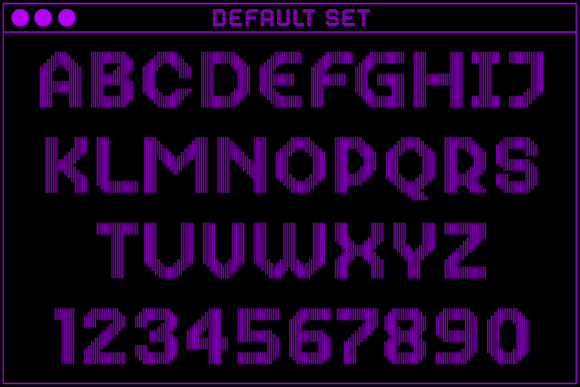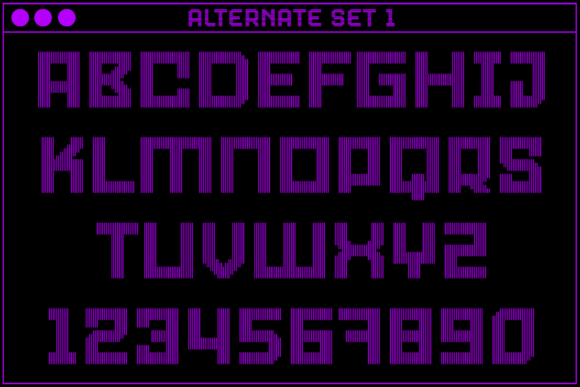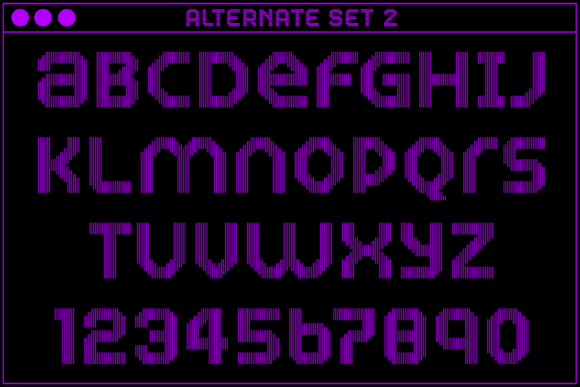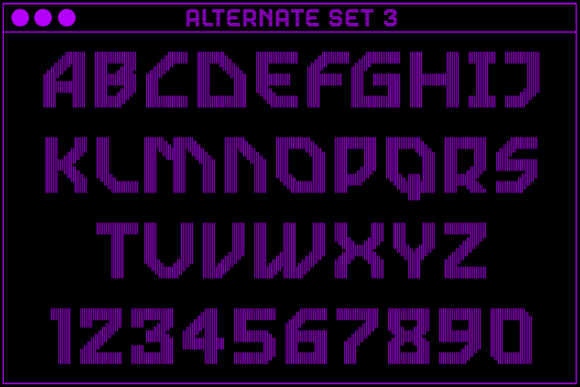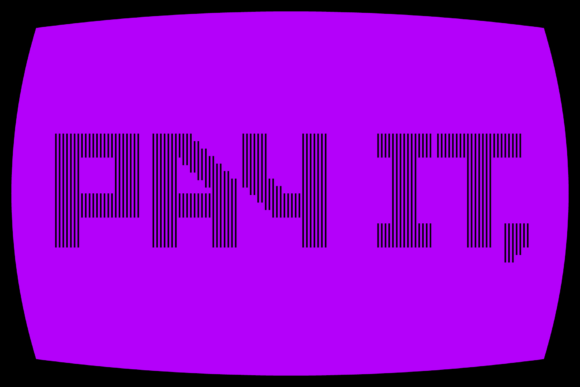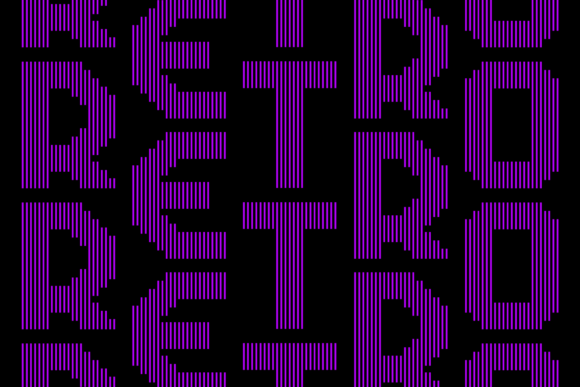
Introduction to MultiType Lines Regular 2 Font
Have you ever been working on a creative project and suddenly, the perfect font strikes your eye? It’s like a lightbulb moment that sets your design off in a whole new direction. For many designers, this feeling is a familiar one, and the right font can make all the difference between a good design and a great one. That’s where MultiType Lines Regular 2 Font comes in – a cool, uniquely shaped, pixelated decorative font that adds a distorted and trendy touch to your designs.
With its PUA encoded features, you can easily access all glyphs and swashes, giving you endless possibilities for your next design project. Whether you’re working on a free download or a high-quality design resource, MultiType Lines Regular 2 Font is sure to bring a touch of creativity and originality to your work. Its versatility and high-quality design make it a valuable addition to any designer’s toolkit.
Key Features of MultiType Lines Regular 2 Font
- High-quality font designed for creative projects, offering a unique and versatile aesthetic.
- Part of a larger font family, offering a range of styles and variations to suit different design needs.
Honest Review: MultiType Lines Regular 2 Font
As a designer, I’m always on the lookout for high-quality design resources that can elevate my creative projects. Recently, I stumbled upon the MultiType Lines Regular 2 Font, and I’m excited to share my honest review with you.
What works well: ✨ The font’s versatility and range of uses are impressive. It’s perfect for creating eye-catching headings, titles, and even body text. The font’s transparent background feature makes it easy to customize and integrate into any design project. I appreciate how easy it is to download and use for free, making it an excellent resource for designers of all levels.
Limitations: ⚠️ The font may not be suitable for very small text sizes, as it can become difficult to read. Additionally, some users may find the font’s style a bit too bold or overpowering for certain design projects.
Overall, I’m thoroughly impressed with the MultiType Lines Regular 2 Font. Its high-quality design, versatility, and ease of use make it an excellent addition to any designer’s toolkit. If you’re looking for a reliable and effective font for your next creative project, I highly recommend giving it a try.
Tips for Getting the Most Out of MultiType Lines Regular 2 Font
Use the MultiType Lines Regular 2 Font on a transparent background to create a clean and minimalist design. Experiment with different font sizes and styles to add visual interest to your project.
The MultiType Lines Regular 2 Font is suitable for various creative projects, including logos, business cards, brochures, and website headers. Its high-quality design makes it an excellent choice for any project that requires a professional and modern look.